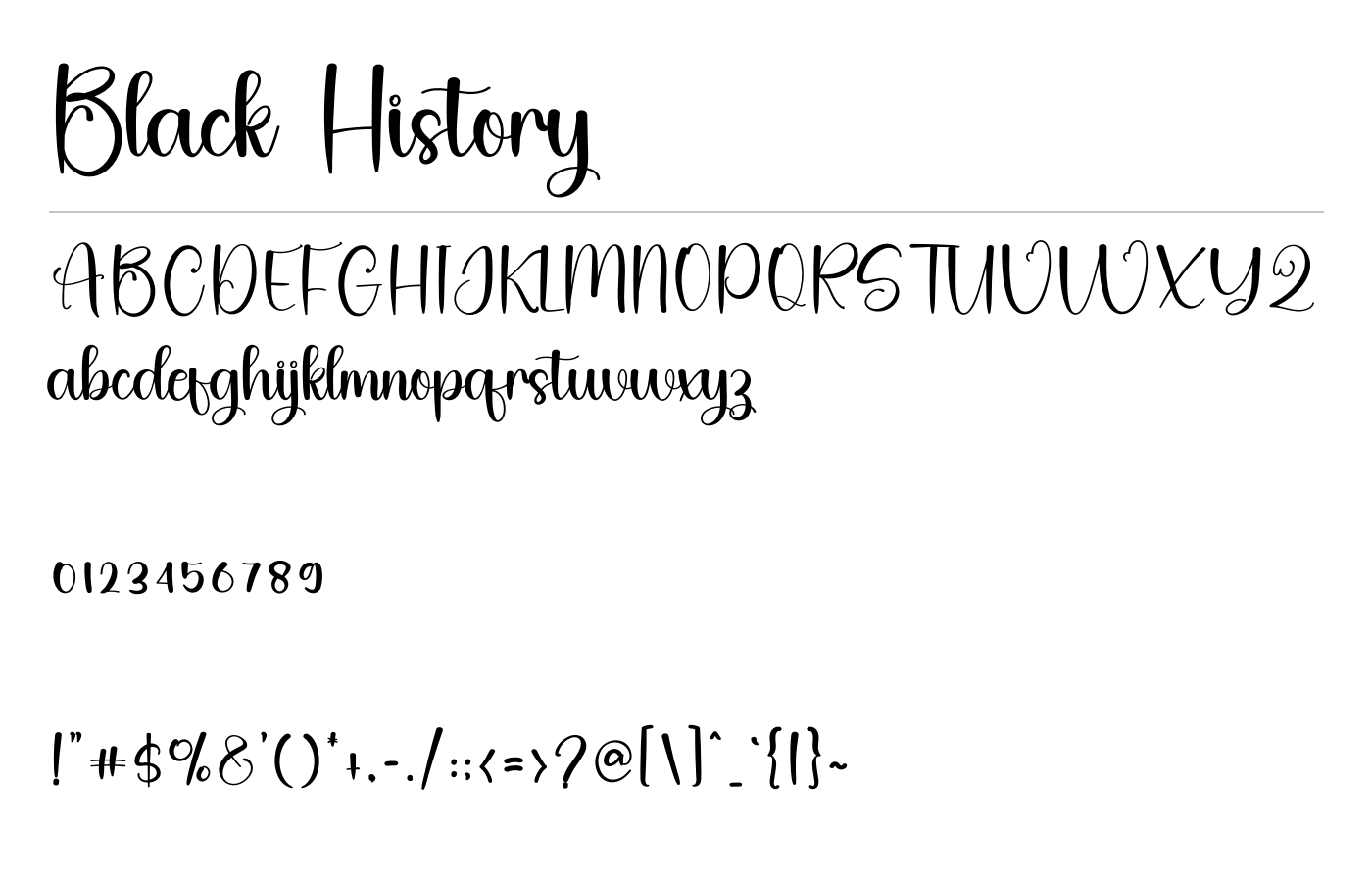
Black History Font is a playful and elegant script typeface featuring thin, smooth strokes and whimsical curls on many characters, giving it a friendly and artistic feel. Its tall x-height and airy spacing make it highly readable for decorative headlines and creative branding, especially in fashion, invitations, or cultural projects. This font’s unique charm and lively character shapes bring warmth and personality to designs that seek a personal, handcrafted touch.
Black History Font
About Black History Font